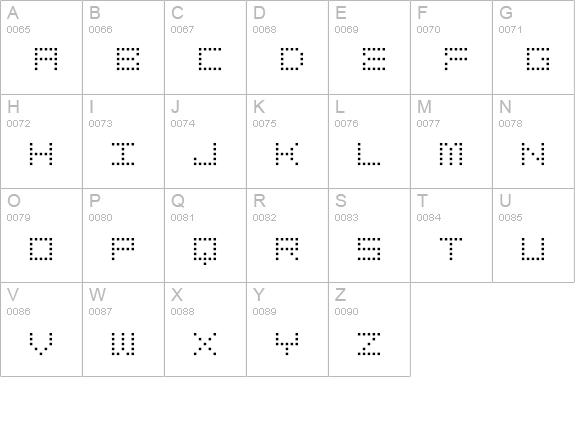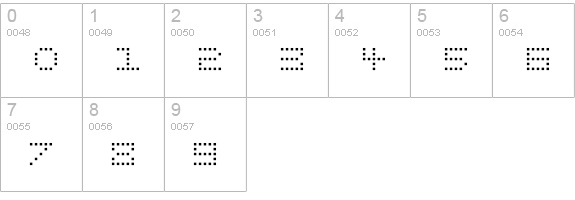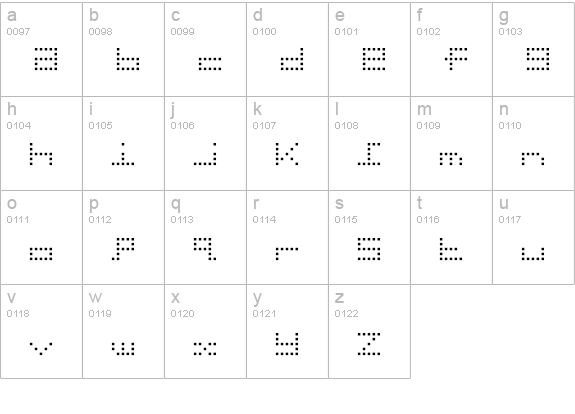
Gridder-POS Font Details
Introducing Gridder-POS font, a modern and sleek typeface designed specifically for point of sale systems and digital displays. With its clean lines and easy readability, Gridder-POS is the perfect choice for businesses looking to enhance their branding and customer experience. This versatile font is ideal for showcasing product names, prices, and promotional messages in a clear and professional manner. Best of all, Gridder-POS font is completely free to download at FontsMarket.com. Whether you're a small business owner or a design enthusiast, you can easily access this high-quality font at no cost. Elevate your POS signage and digital communication with Gridder-POS font today!